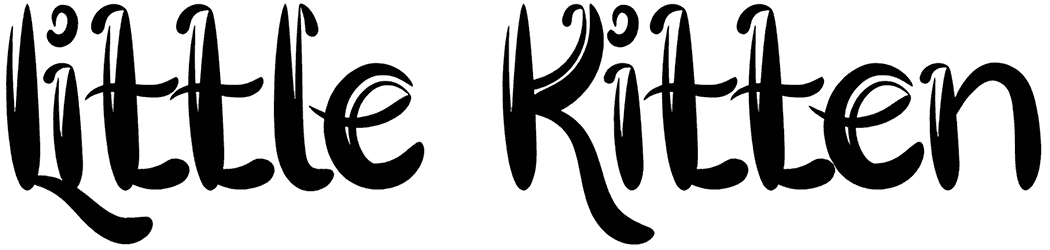
Little Kitten Font
Little Kitten is a handwritten font that will definitely fulfill your needs for designing high-end graphic content, including posters, brochures, logos, book covers, and social media posts. This brush font can add a feeling of momentum, playfulness, vivacity, or tenderness to your artwork. Just in case you are looking for another font in the same category, don’t hesitate to visit our rich archive.